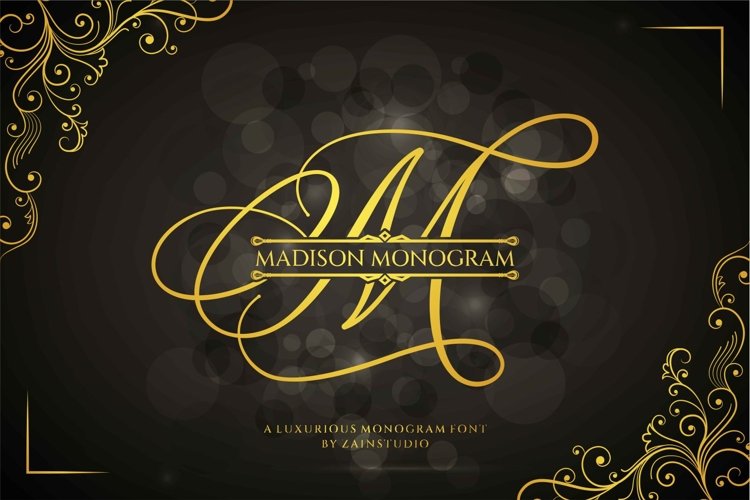
Modern Monogram Fonts
Crafters, designers, and creatives: choose from the best monogram fonts available to elevate your projects in a few clicks. Monograms are the popular choice to personalize wedding invitations, gifts, apparel, and much more.
Oh, and if you need to know whose stuff belongs to who STAT, the mighty monogram can help. Now you know why crafters, makers, and creatives have adored these design elements for generations!
Monogram Fonts: Basic Design Concepts
Your typical monogram design style is created at 1-4 inches. A common way crafters set up the initials is first name initial, larger last name initial, and smaller middle name or maiden name initial. For some time, this design style is mostly associated with embroidery. Now you'll find it used by creatives doing other design styles like etch, laser-cut, and more.
Of course, crafters and makers can now find monogram fonts for Cricut or Silhouette to cut vinyl for these designs. They can be used with HTV or adhesive vinyl and added to almost anything. How cool!
Modern Options
While the ornate lettering style is still a popular option for this design style, there are many modern versions. There are even country options and styles, too. If you need a fun project, you should totally check out this video showing how to apply a monogram to a pair of flip flops.
Split monogram fonts are also super exciting. Designers mostly use one large capital letter, often embellished, then split it or leave a space through the middle. This space is to spell out the first or last name. It certainly takes the guesswork out of the equation. These split letter font options are great.
Floral monogram letter designs and fonts are popular and versatile design elements. Monograms in this style are usually adorned with flowers or foliage. This detailed design is ideal for weddings, natural or nature subjects, and organic or environmentally friendly themes. Floral monogram designs are ideal for card designs, wood signs, poster art, and even scrapbooking.